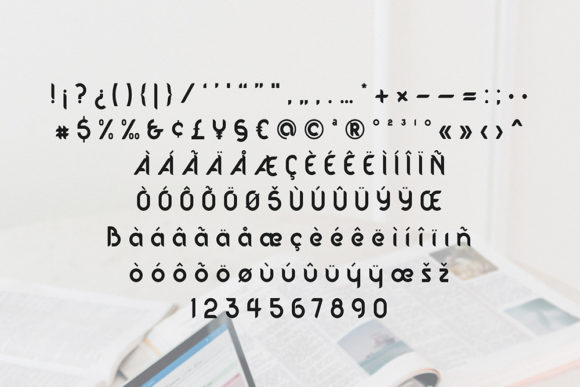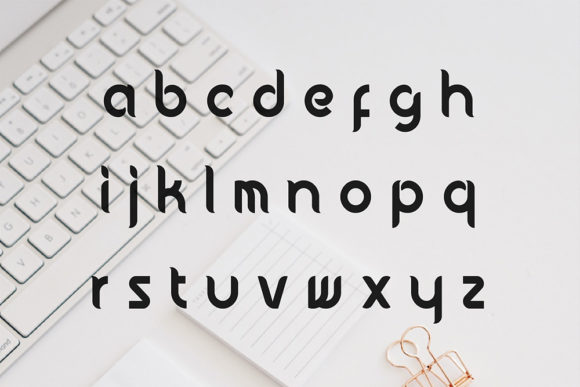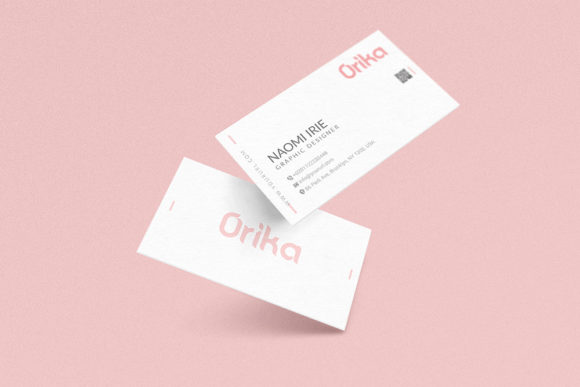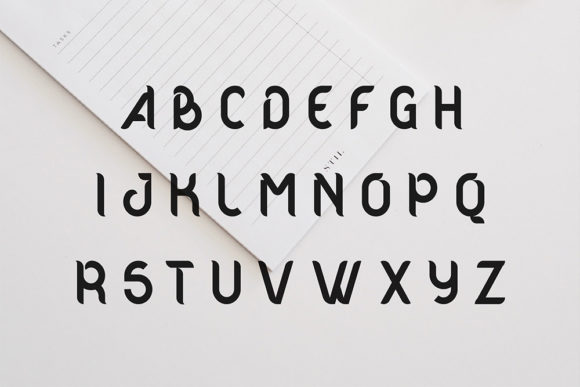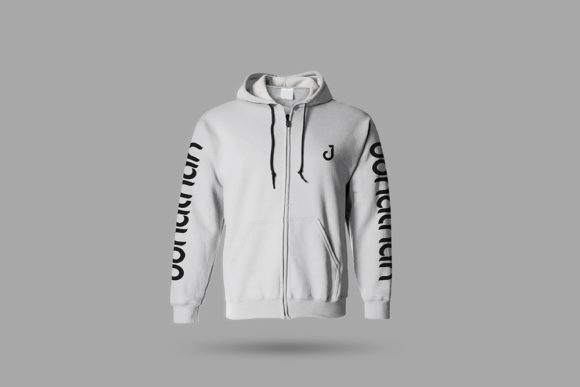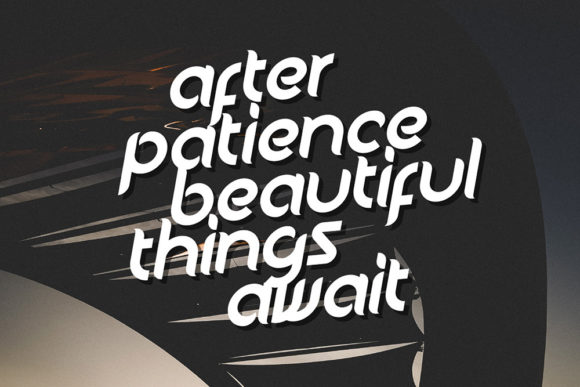
Introduction to Qailbert Font
You’ve spent hours pouring over your latest creative project, perfecting every detail from the color palette to the typography. But there’s one crucial element that can make or break the entire design: the font. And when you need a font that truly stands out, you’ll want to turn to the Qailbert Font. This stunning display font is the perfect addition to any design resource, adding a touch of sophistication and style to your work.
Imagine a font that’s as versatile as it is eye-catching – one that can be used on posters, flyers, or prints with equal flair. The Qailbert Font is that font, offering endless possibilities for designers looking to elevate their creative project. With its sleek, modern aesthetic, it’s the perfect choice for any high-quality design.
Key Features of Qailbert Font
- High-quality, professional design resource ideal for creative projects.
- Unique characteristics include its elegant and modern design, making it suitable for a variety of creative projects, from logos to typography-based designs.
Honest Review: Qailbert Font
As a designer, I’m always on the lookout for high-quality design resources that can elevate my creative projects. The Qailbert Font is one such resource that I’d like to share my honest review of.
What works well: ✨ I was impressed by the Qailbert Font’s unique and elegant design, making it perfect for projects that require a touch of sophistication. The font is highly customizable, allowing me to adjust the size, color, and style to fit my design needs. The transparent background feature is also a plus, as it gives me more flexibility when designing with complex backgrounds.
Limitations: ⚠️ While the Qailbert Font is a great design resource, I did find that it can be a bit challenging to use in certain situations. For instance, the font’s intricate design can sometimes make it difficult to read, especially in small text sizes. Additionally, the free download version has some limitations, such as limited character sets and no commercial use.
Overall, I’d say the Qailbert Font is a great addition to any designer’s toolkit. Its high quality and unique design make it perfect for creative projects, and the free download version is a great starting point for those on a budget. Just be aware of the limitations and plan accordingly.
- Unique and elegant design
- Transparent background feature
Experiment with different font sizes, colors, and styles to get the most out of the Qailbert Font. Use it to create visually appealing headings, titles, and body text.
Qailbert Font is ideal for:
Creating eye-catching social media graphics and posters
Designing professional-looking presentations and documents
Adding a touch of elegance to your website and blog
Montserrat is a versatile sans-serif font designed for use in urban environments. It’s a high-quality design resource that’s perfect for creative projects, especially those that require a modern and sleek look. Montserrat is an excellent alternative to Qailbert Font when you need a font with a more geometric and condensed feel. It’s also available for free download, making it a great choice for designers on a budget.
Does the Qailbert Font have a transparent background?
No, the Qailbert Font does not have a transparent background. However, it is designed to be highly legible and versatile, making it suitable for a wide range of design applications, from print to digital media.